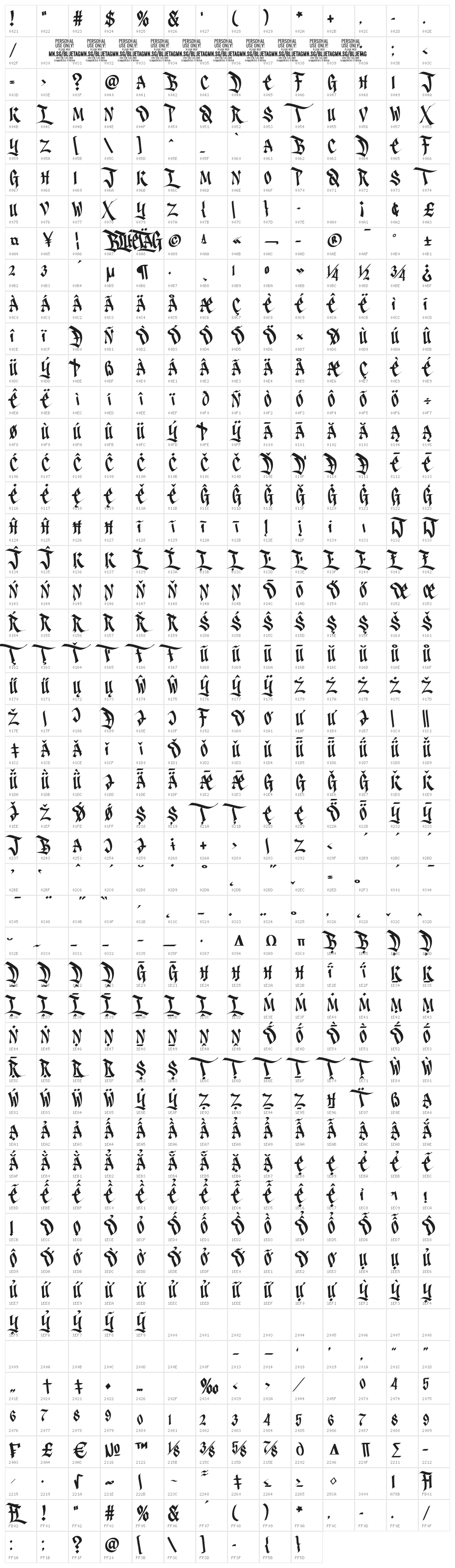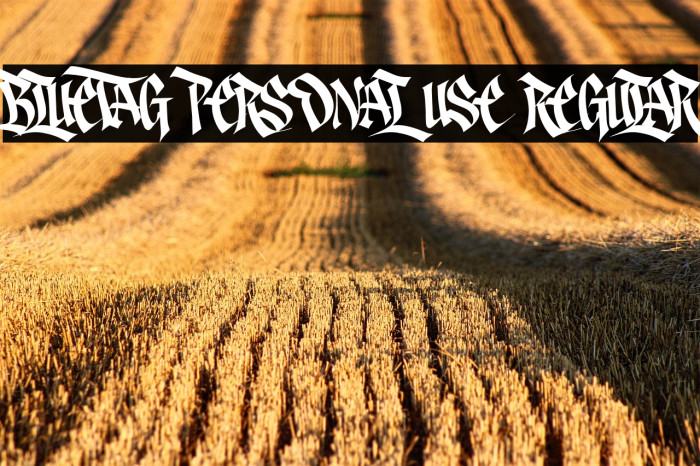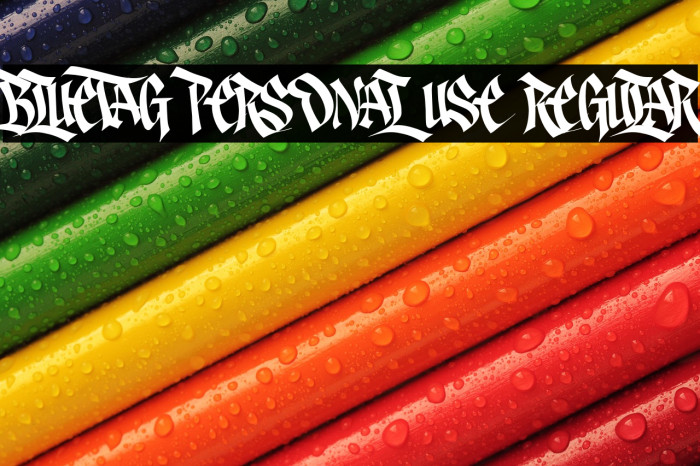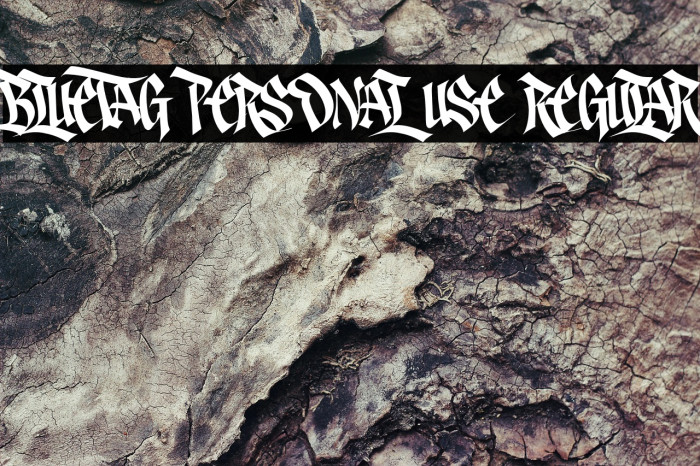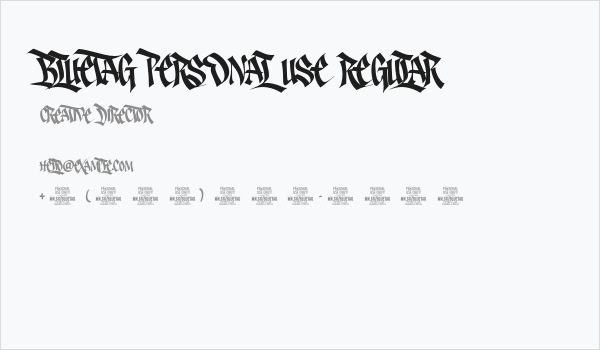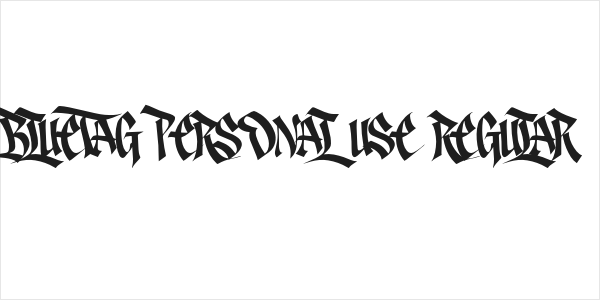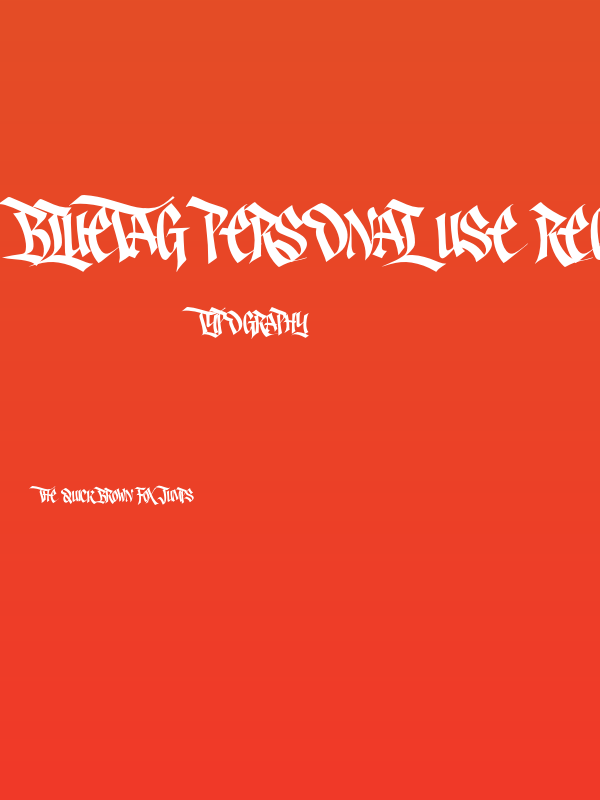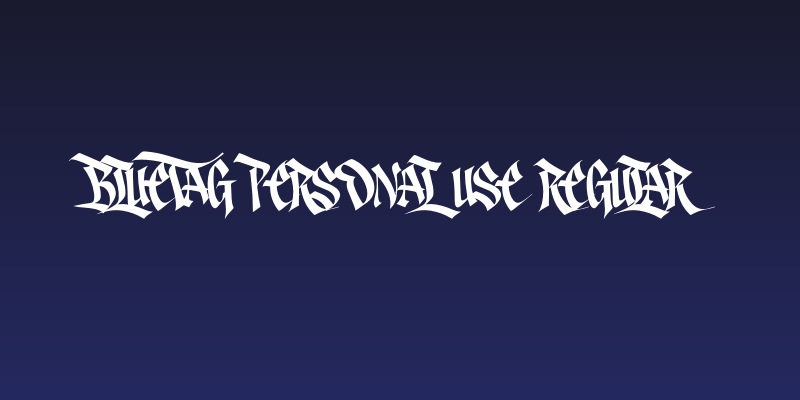
Bluetag PERSONAL USE Regular Font
Bluetag PERSONAL USE Regular Description
A bold, angular display typeface with dramatic, sharp strokes and a calligraphic, graffiti-inspired aesthetic. The letterforms are highly stylized with exaggerated curves and pointed terminals, evoking a sense of urban art and street culture.
| Overall Style | Decorative, Urban, Graffiti |
| Proposed Projects | Streetwear branding, music album covers, event posters, skateboarding graphics, urban art projects. |